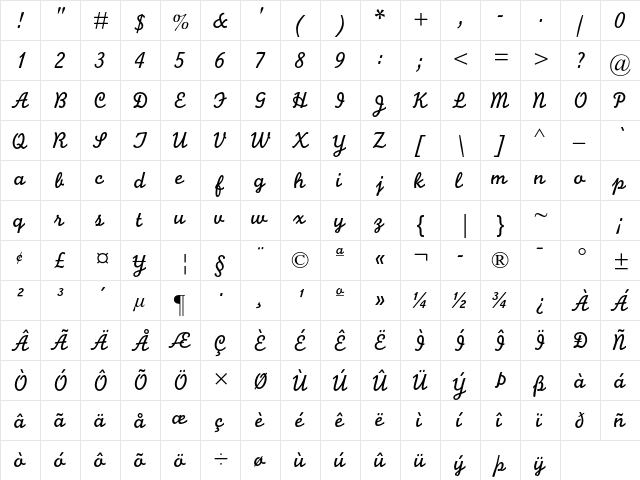
Monoline Script MT Std Regular
Design Context for Monoline Script MT Std Typeface
Monoline Script MT Std flows with the natural rhythm of handwritten lettering, making it ideal for designs that call for warmth and personal expression.
Font Pairing: Combine Monoline Script MT Std with a simple geometric sans for maximum contrast — the tension between flowing curves and clean structure is a classic typographic pairing.
Pro Tip: Pair Monoline Script MT Std with a clean sans-serif for supporting text. The contrast between fluid script and geometric structure creates an elegant typographic hierarchy.